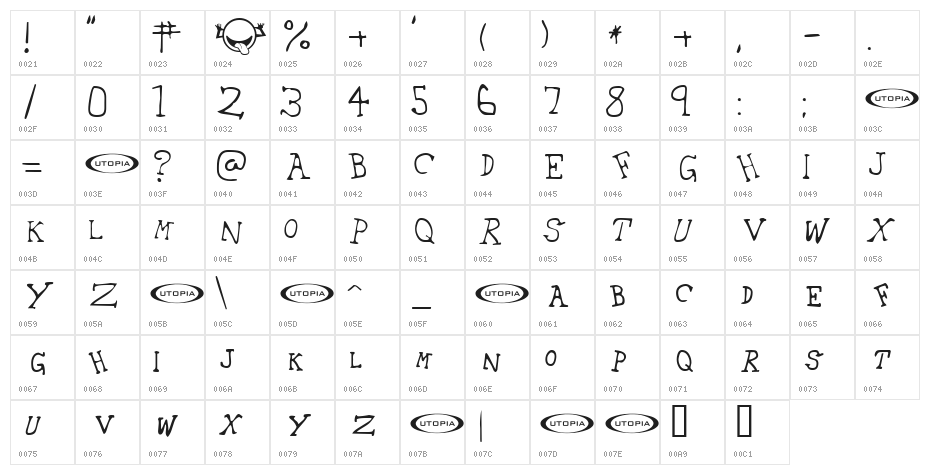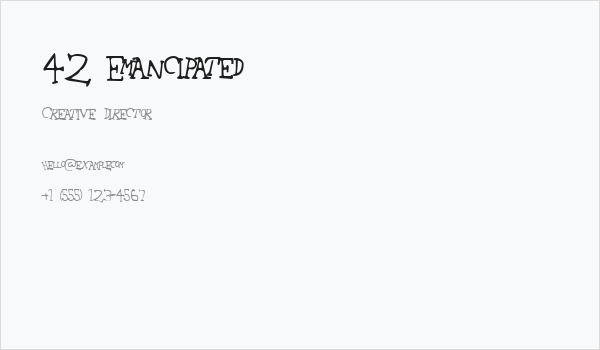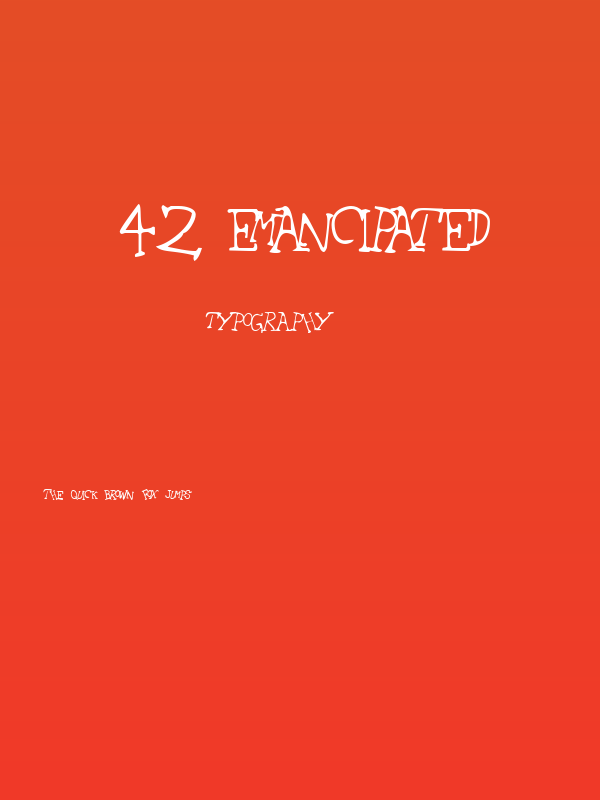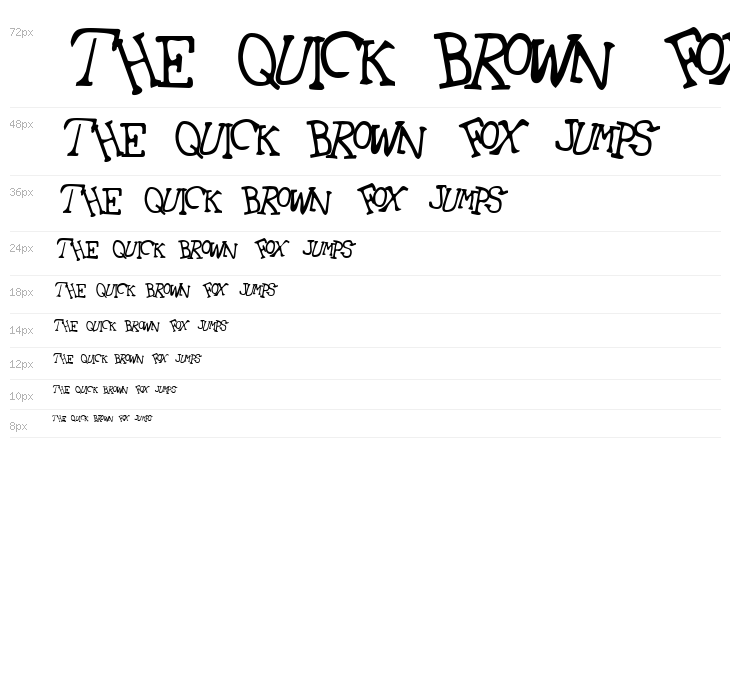
42 Emancipated Font
42 Emancipated Description
This font features a playful and whimsical design with exaggerated curves and uneven lines, giving it a hand-drawn appearance. The characters are tall and narrow, with a quirky, almost cartoonish style that adds a sense of fun and creativity. The uppercase letters have a unique flair with varying stroke thickness, while the lowercase letters maintain a consistent style. Numbers and special characters follow the same playful theme, making this font suitable for projects that require a lighthearted and informal touch.
| Overall Style | Whimsical |
| Proposed Projects | Ideal for children's books, comic strips, playful branding, and creative posters. |